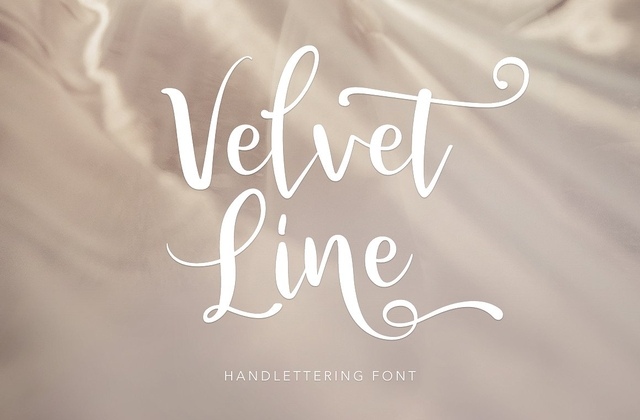
Velvet Line Font
This Velvet Line Font is perfect for luxury fashion branding, high-end cosmetics packaging, elegant magazine layouts, premium jewelry advertisements, sophisticated restaurant menus, upscale hotel materials, wine label designs, art gallery exhibitions, and refined wedding stationery.
What makes this Velvet Line Font exciting is its sophisticated blend of smooth curves and refined line weights that create an irresistibly luxurious visual experience. The font features graceful letterforms with elegant proportions that evoke the tactile smoothness and visual richness of velvet fabric. Its refined character spacing and balanced contrast deliver premium aesthetics that instantly elevate any design project.
The Velvet Line Font family includes light, regular, and bold weights with complementary italic variants. This carefully crafted font family offers designers the versatility to create sophisticated typographic hierarchies while maintaining the luxurious character that defines premium brand communications.
Luxury brands and creative agencies consistently choose Velvet Line Font Free Download for projects demanding exceptional elegance and visual refinement. This font's distinctive sophisticated character perfectly captures the essence of premium quality and exclusivity that discerning consumers expect from high-end brands and luxury experiences.
The meticulous craftsmanship of Velvet Line Font showcases perfectly balanced letterforms with subtle curves that create smooth reading flow. Its refined stroke modulation and elegant proportions ensure exceptional legibility while maintaining the sophisticated aesthetic that premium brands require for effective market positioning.
Professional designers appreciate how Velvet Line Font seamlessly combines timeless elegance with contemporary appeal. The font's luxurious character allows it to communicate exclusivity and quality while remaining versatile enough for various applications across print and digital luxury brand touchpoints.
The premium quality of Velvet Line Font makes it particularly effective for brands targeting affluent demographics who appreciate fine craftsmanship and sophisticated design. Its elegant appearance creates immediate associations with quality, exclusivity, and refined taste that luxury markets demand.
Whether developing packaging for premium beauty products or creating materials for exclusive events, Velvet Line Font Free Download provides the typographic sophistication that luxury brands need to communicate their premium positioning and connect with consumers who value elegance, quality, and refined aesthetic experiences.